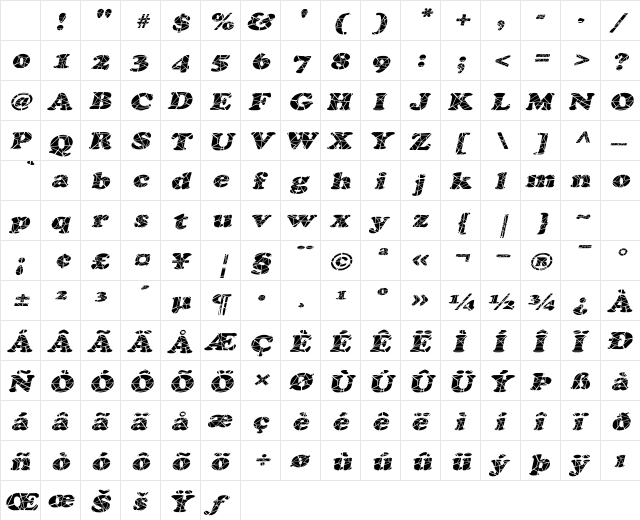
Marshmallow Cracked-Extended Italic
Design Context for Marshmallow Cracked-Extended
Marshmallow Cracked-Extended is a composed and adaptable typeface that performs quietly and consistently across a wide range of design contexts. The slanted form adds forward momentum and visual energy.
Pro Tip: Use Marshmallow Cracked-Extended for emphasis, pull quotes, and subheadings where its slanted energy can add rhythm to the layout.